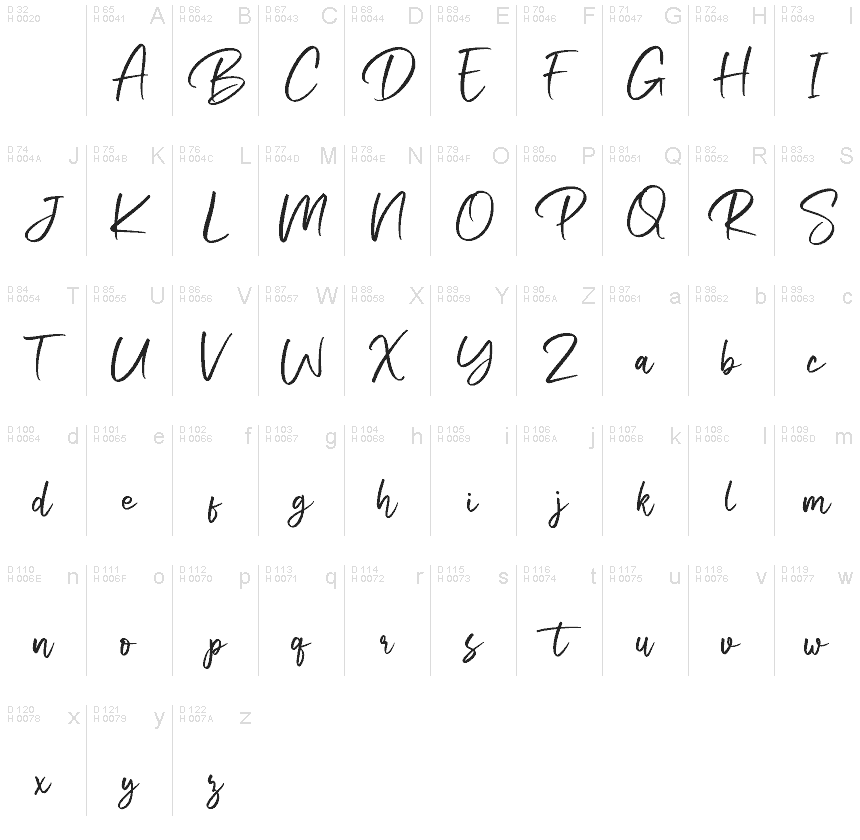
BestonFree-Regular
Beston font by Craft Supply Co. showcases an elegant handwriting style. Featuring a modern flow with stylish flair and expressive curves, this typeface can add uniqueness to a project of choice. The free handwritten font has all it takes to level up the quality of your print and digital design projects.
Start using Beston in wedding invitations, magazine covers, book covers, flyers, posters, social media pages, branding projects like logos and business cards among many other options available to you!
Beston Free Regular